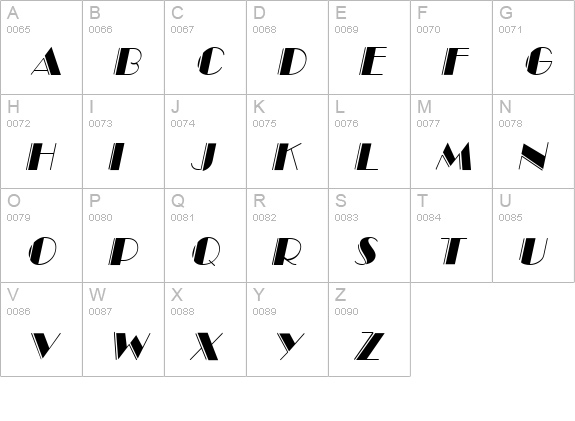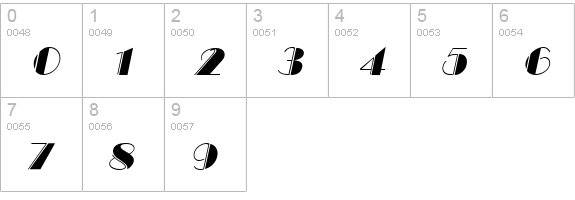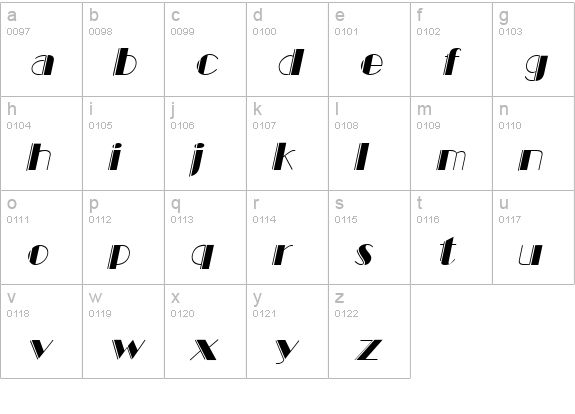
MarqueeEngraved Italic Font Details
MarqueeEngraved Italic is a distinctive, italic variant in the MarqueeEngraved typeface family \xE2\x80\x94 well suited to design and typography projects.
MarqueeEngraved Italic font is a captivating and elegant typeface that exudes sophistication and charm. It combines the timeless allure of engraved lettering with a modern twist of italic styling, resulting in a truly unique and eye-catching design. The beautifully carved strokes of this font give it a distinctive and refined appearance, reminiscent of classic theater marquees. Each letter carries an air of elegance and grace, making it perfect for adding a touch of class to any project or design. Whether you are creating invitations for a high-end event, designing a luxurious logo, or crafting a stylish headline, MarqueeEngraved Italic font is sure to impress. Its finely detailed lines and delicate curves add a touch of finesse and refinement to any text. One of the best aspects of MarqueeEngraved Italic font is that it is freely available to download at FontsMarket.com. This means that you can easily access and use this stunning font in your projects without any restrictions. Its availability for free allows you to elevate your designs without breaking the bank. So, if you are looking for a font that combines the allure of engraved lettering with a modern twist, look no further than MarqueeEngraved Italic font. Its free availability at FontsMarket.com makes it an excellent choice for designers, creatives, and anyone in search of a font that exudes elegance and sophistication. Download it now and let your designs shine with its timeless beauty.